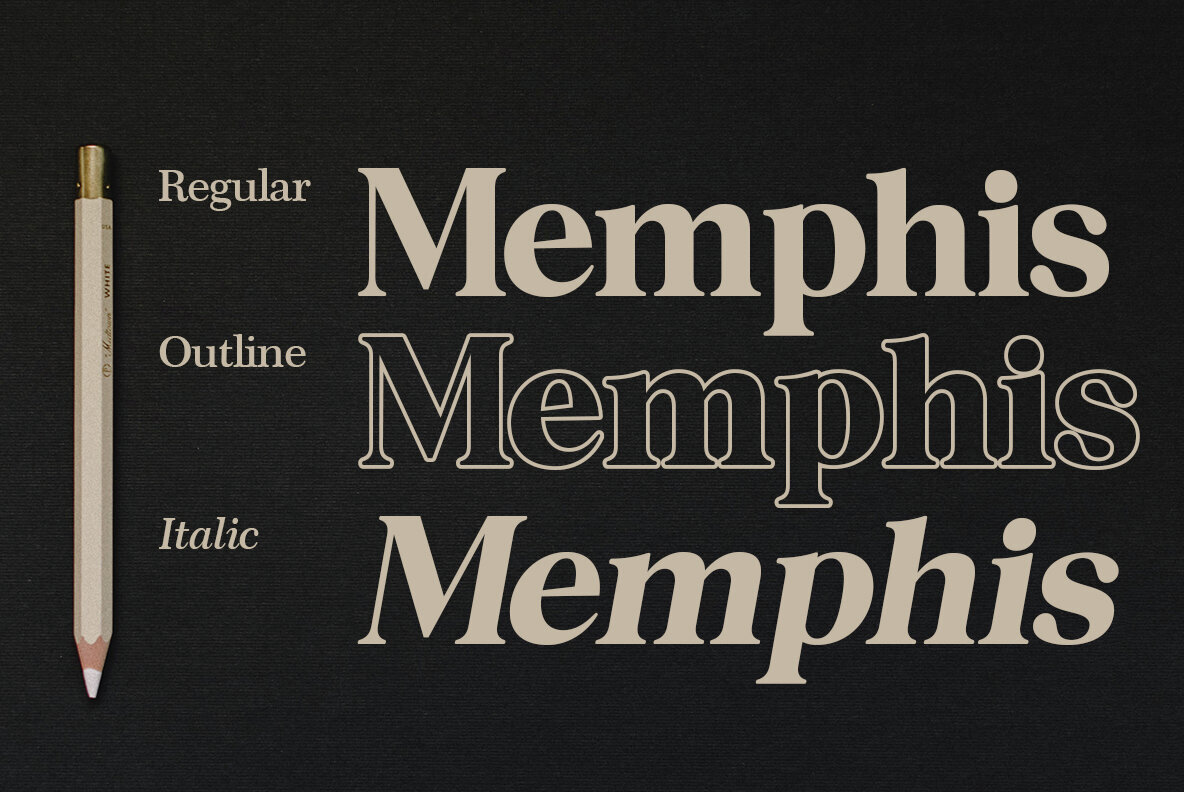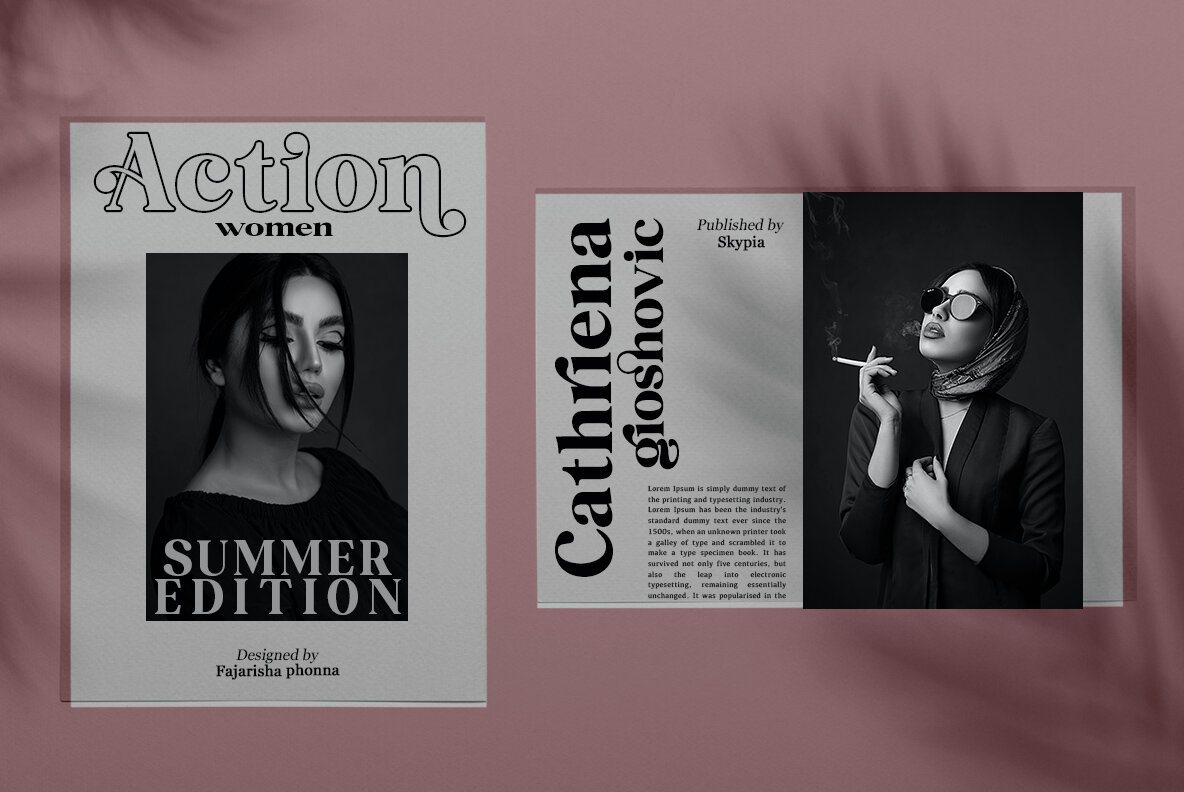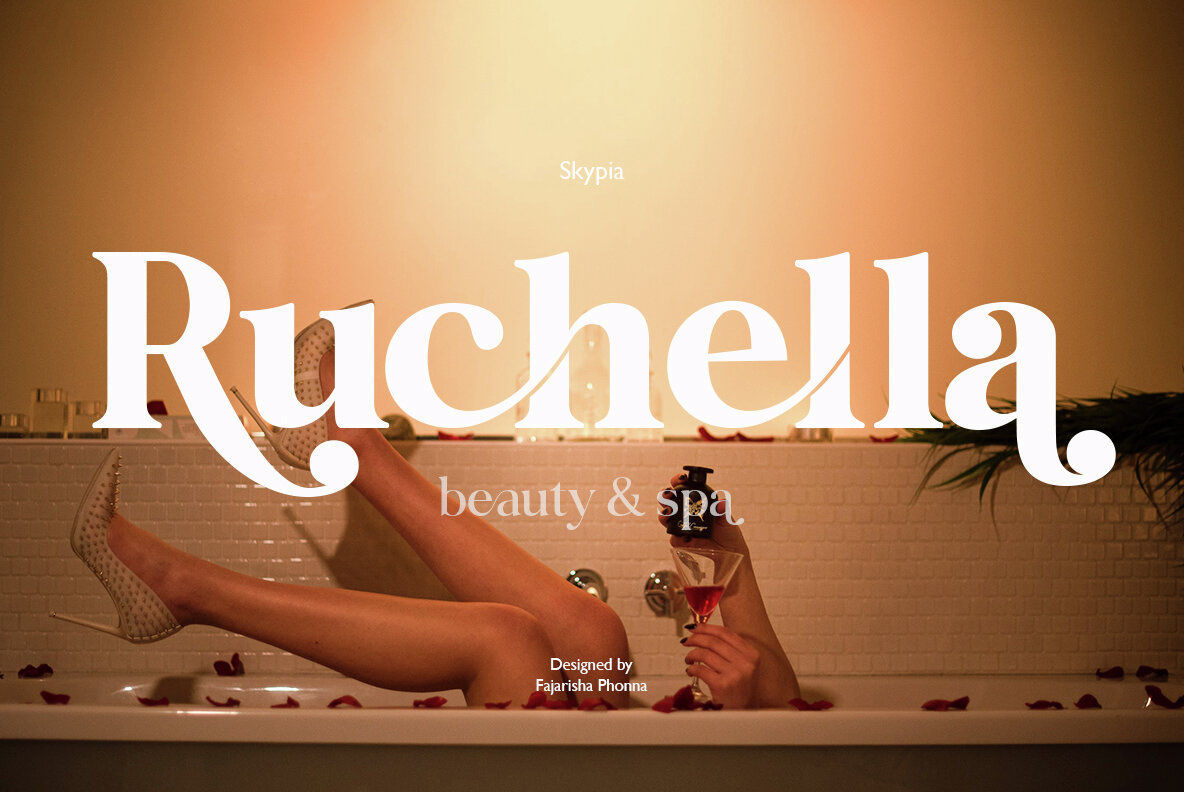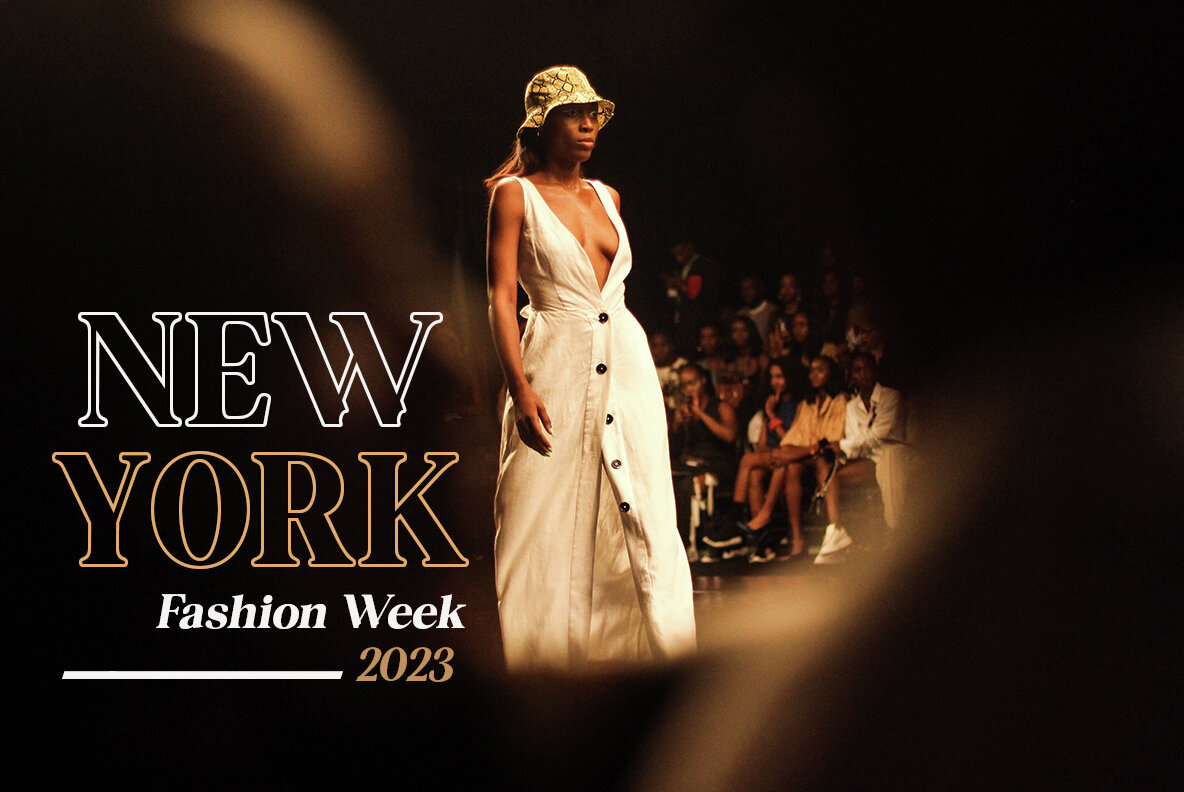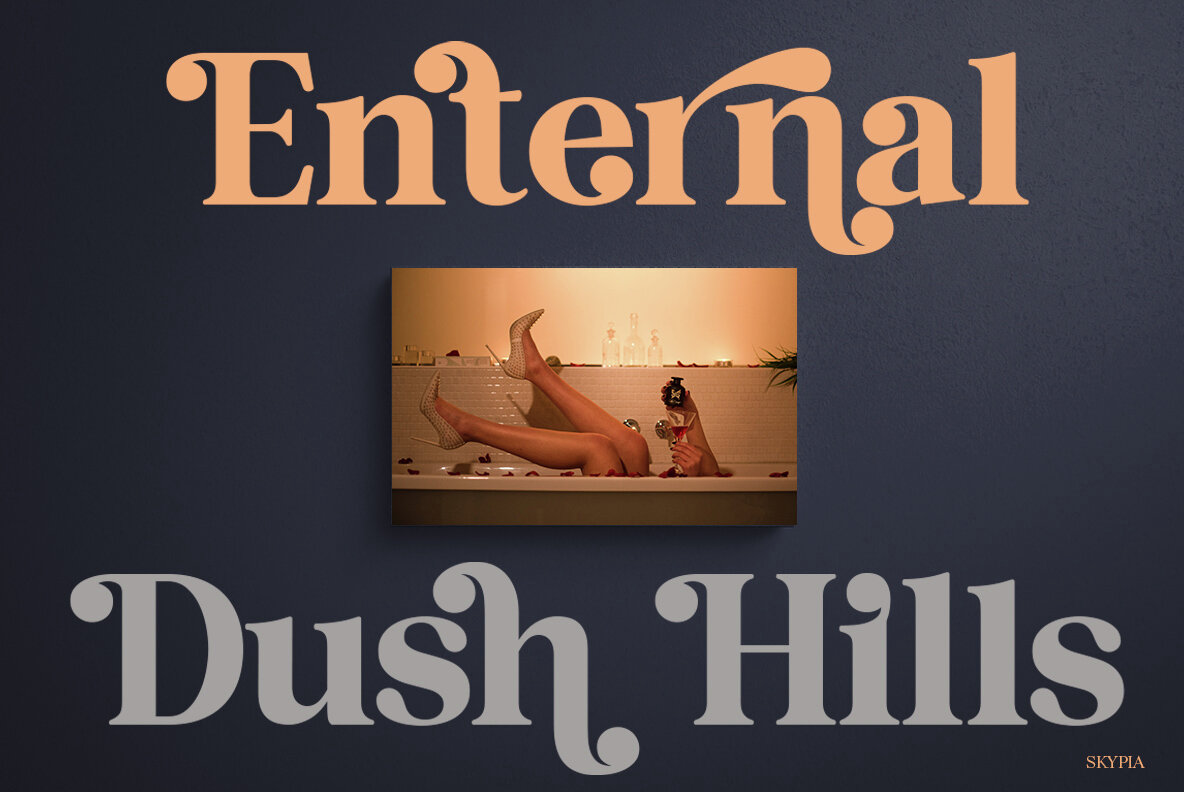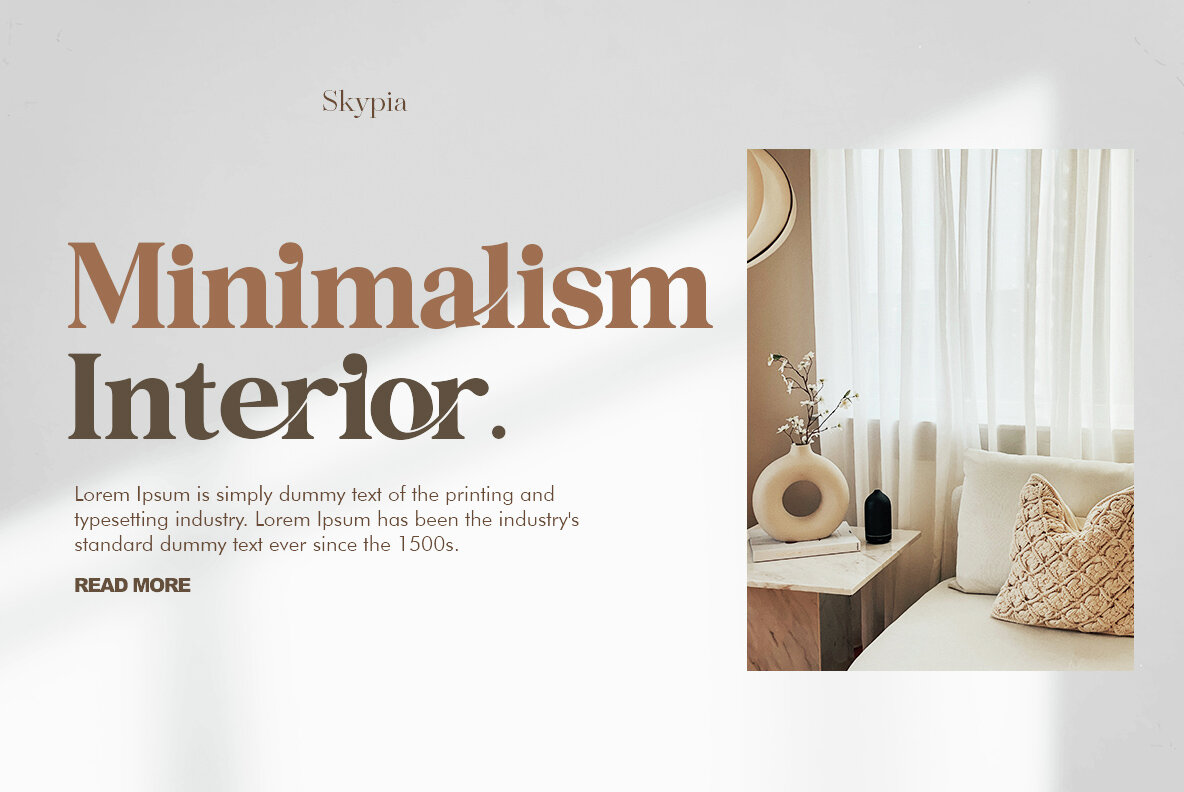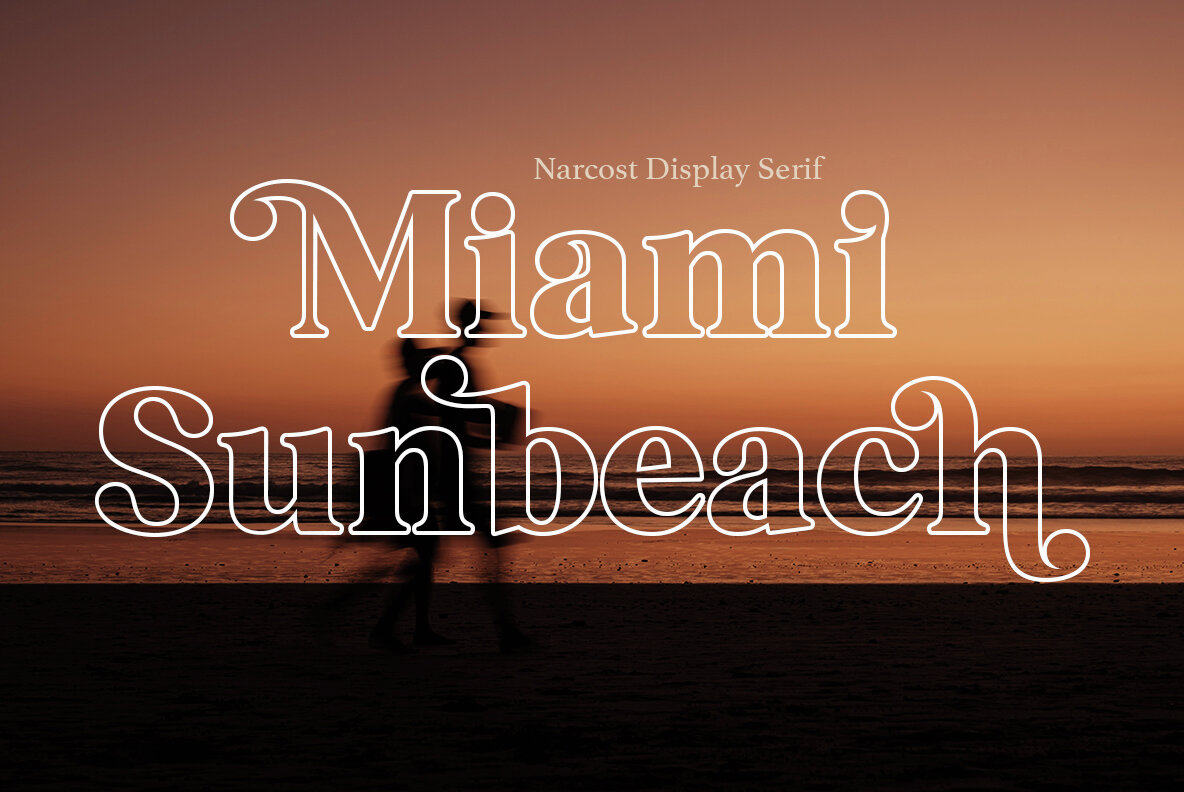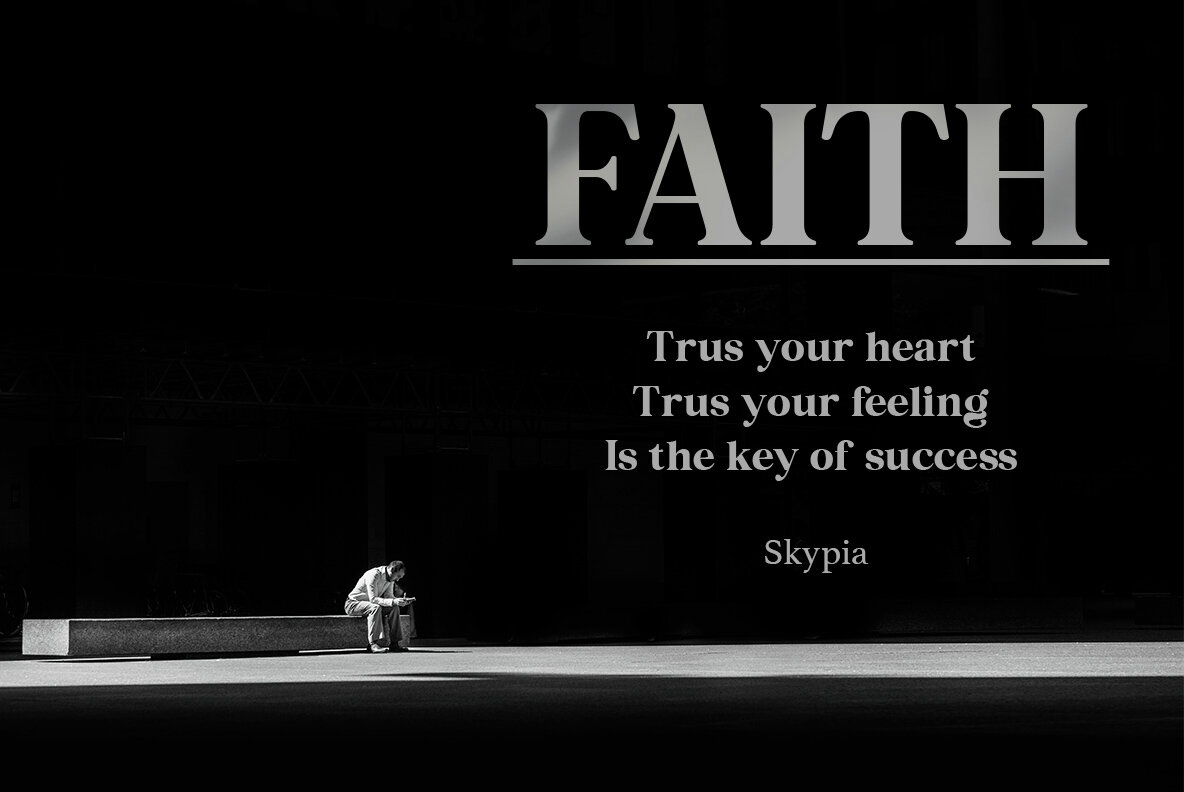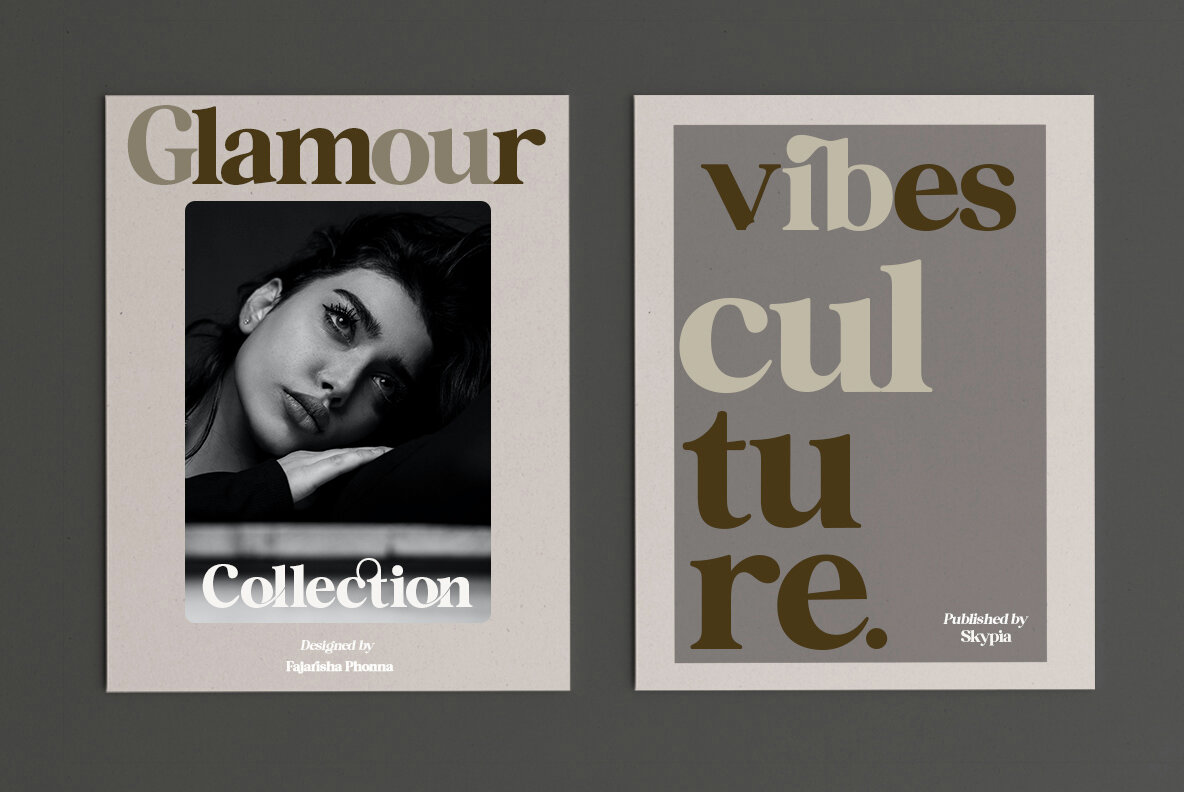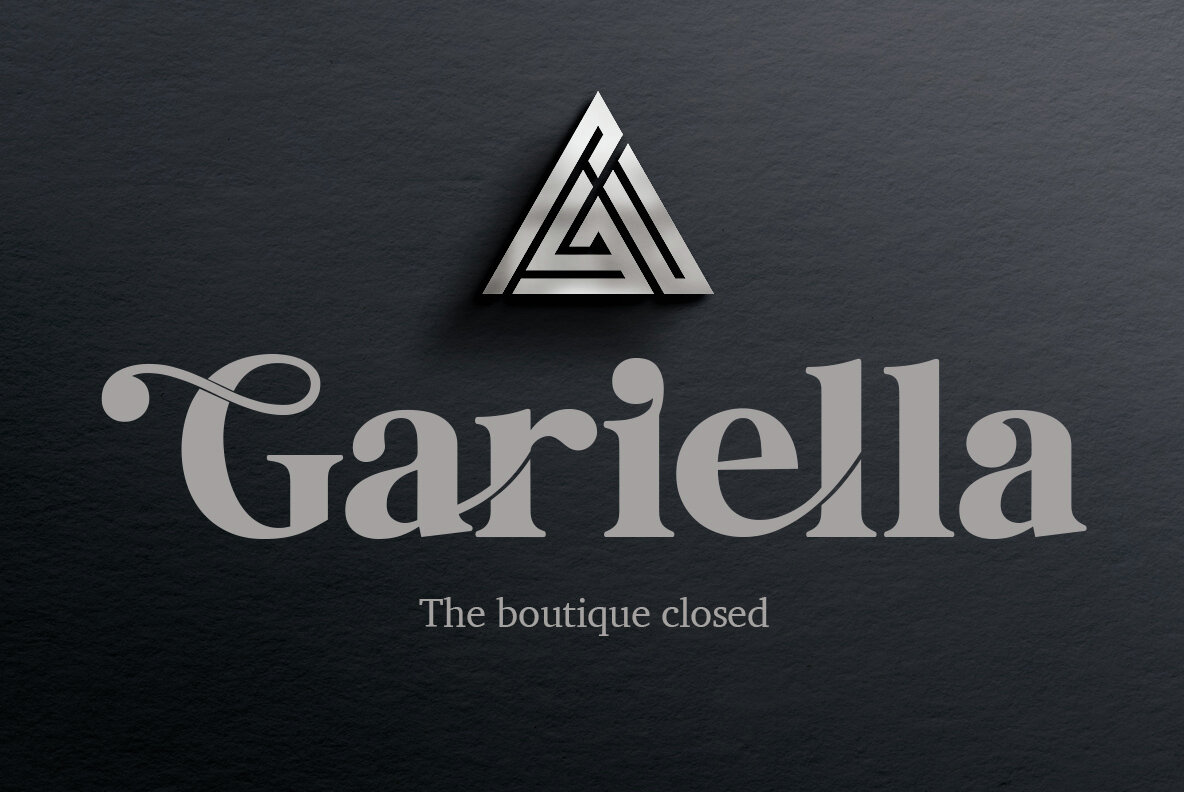
Narcost Font
Narcost is a modern vintage serif font, designed with a classy style and featuring OpenType capabilities to access a wide array of alternate letters and ligatures. Its options range from uppercase to lowercase letters, creating a luxurious and elegant display. Narcost offers a unique and playful serif family, with flexibility and style. Incorporating 35 ligatures and 61 alternates, this font enhances any design, making it ideal for various applications such as branding projects, logo design, clothing branding, packaging, magazine headings, advertising, T-shirts, postcards, and more. Thank you, SkypiaNarcost: A Stylish and Versatile Serif Font